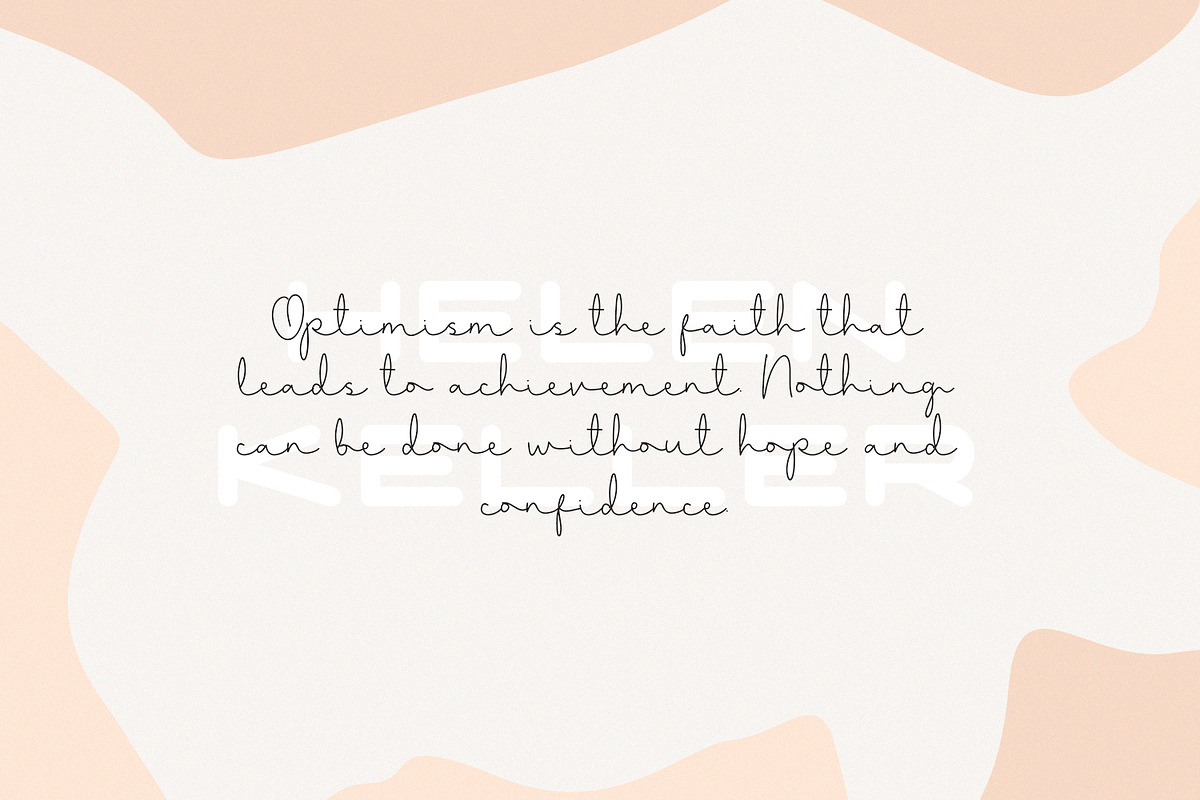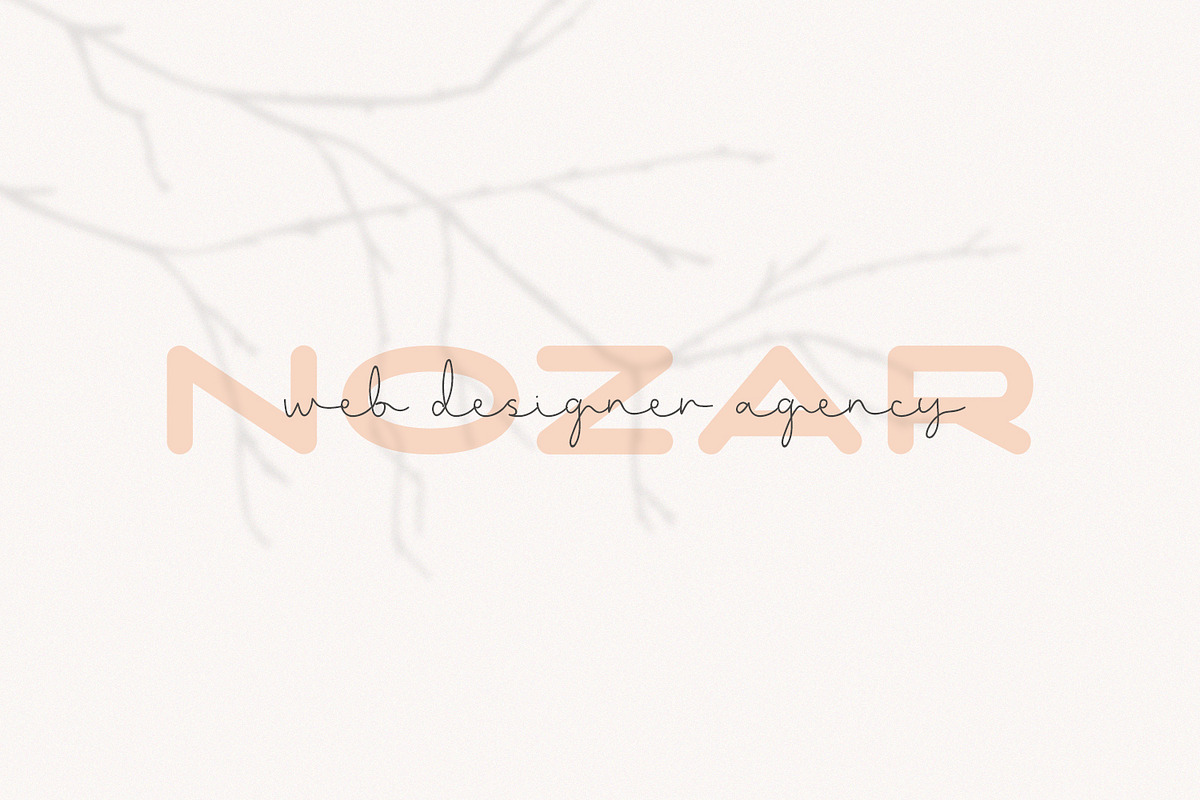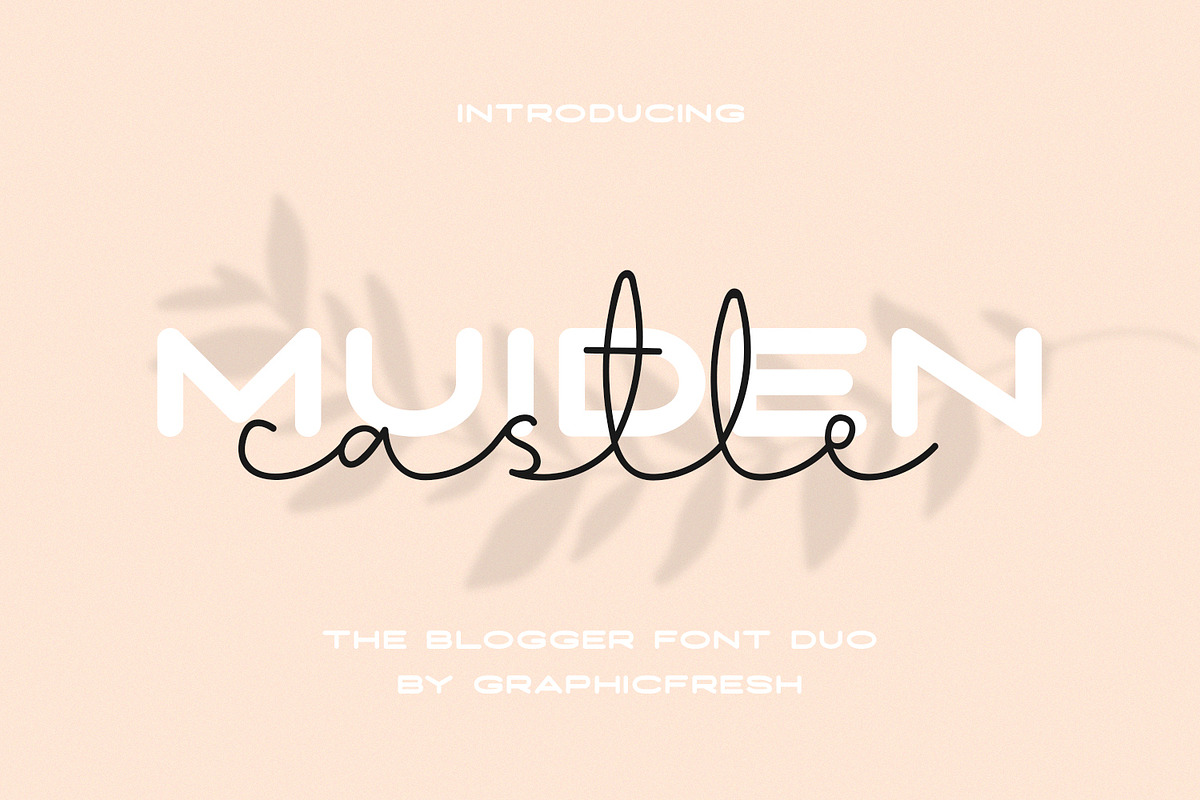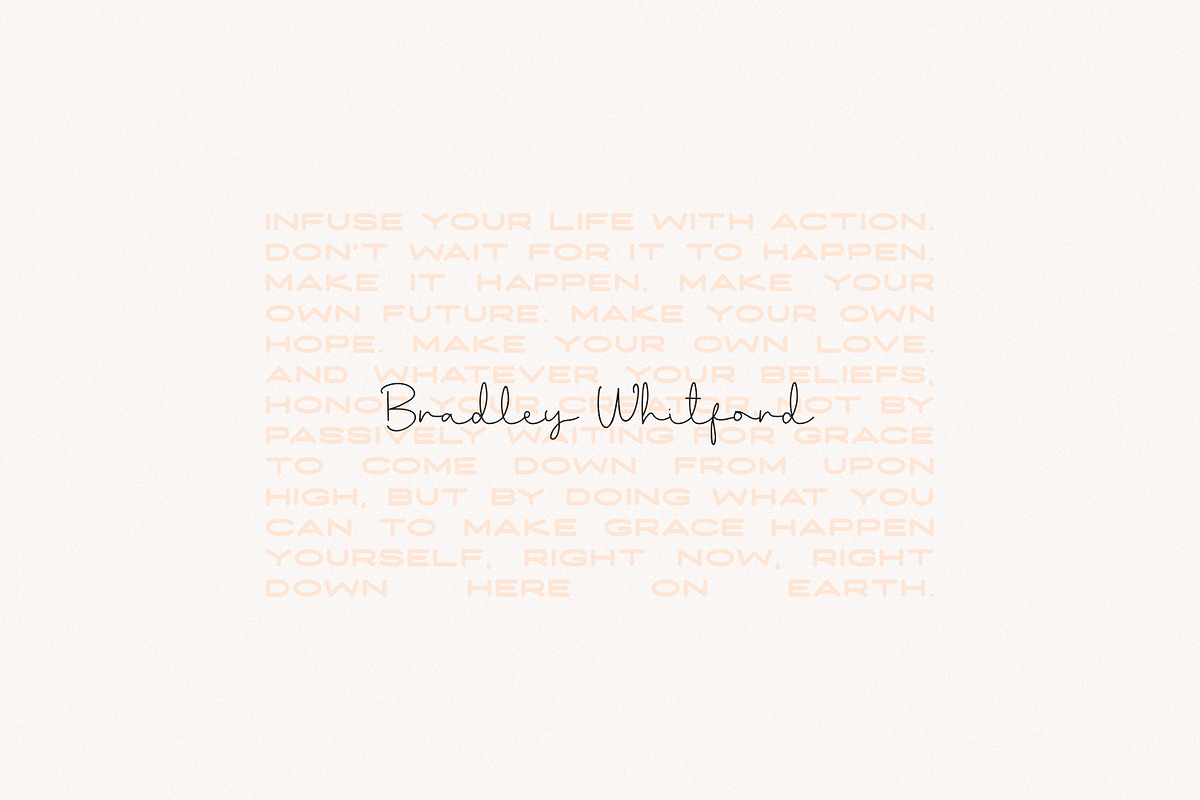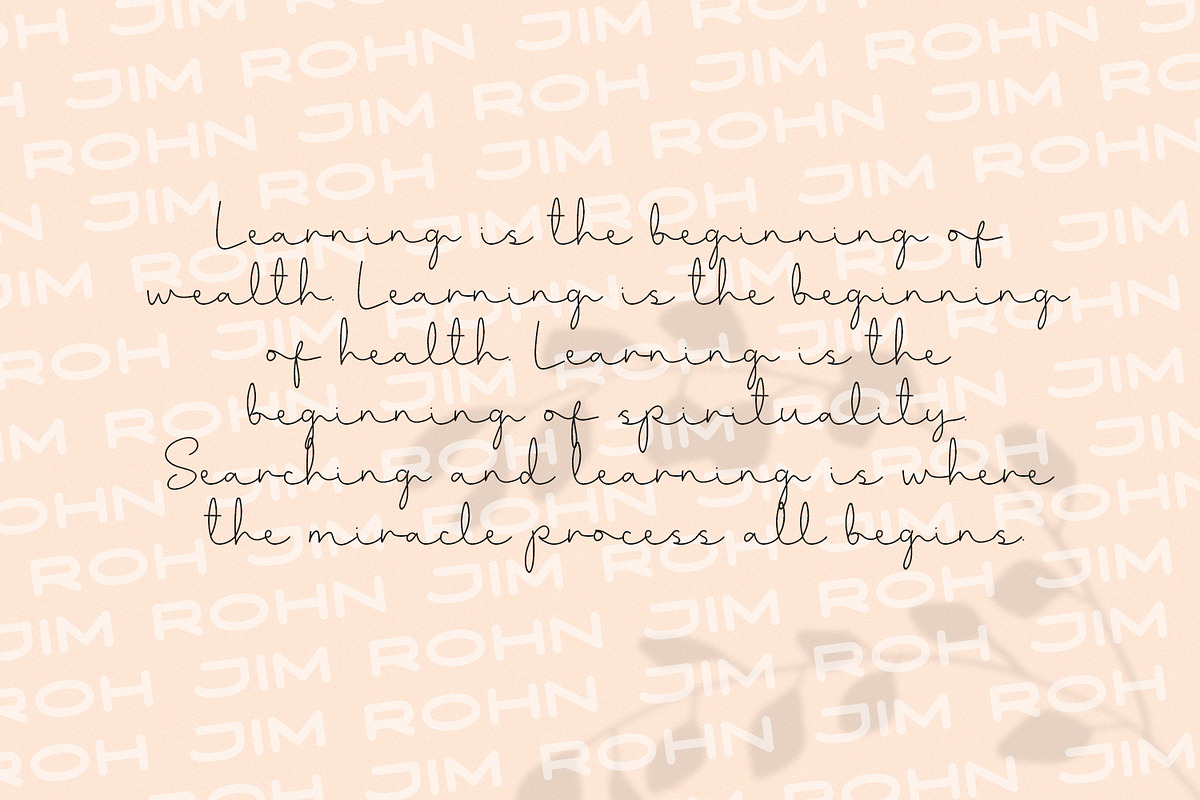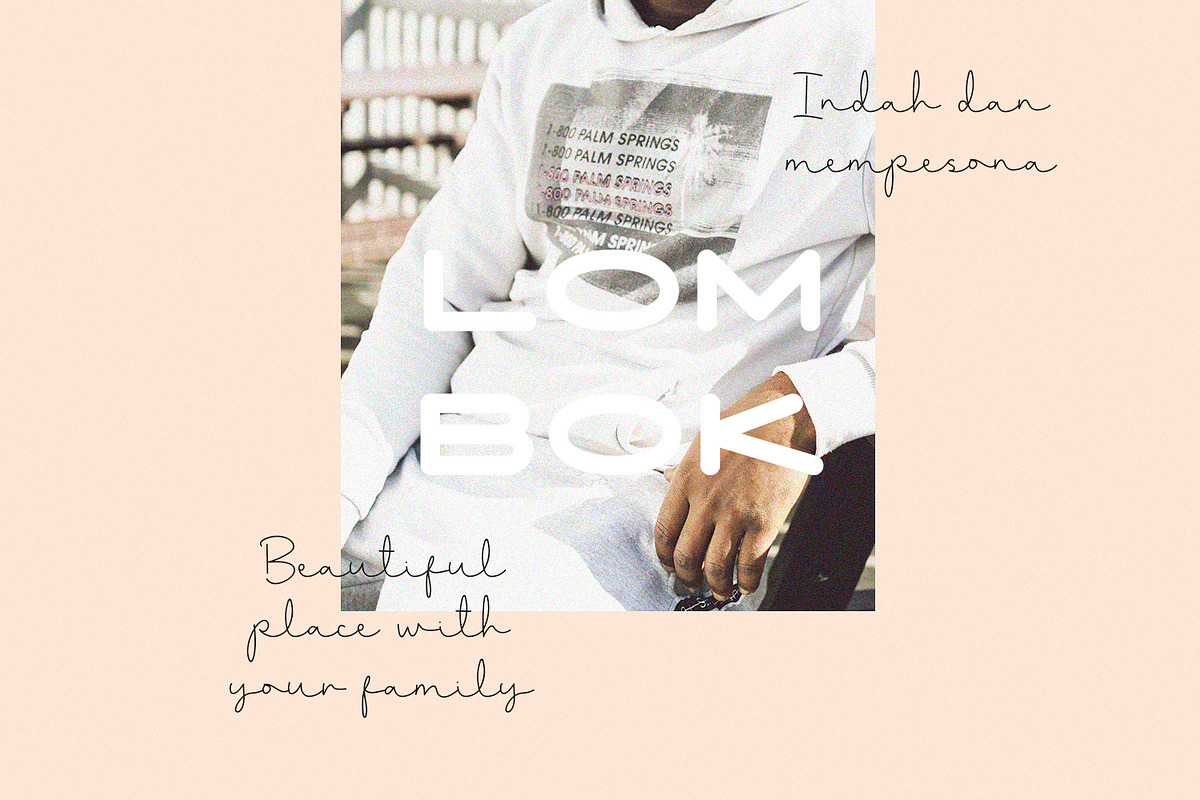
Muiden Castle - The Blogger Font Duo
Introducing Muiden Castle Font Duo!. It comes with an elegant and feminine style which is perfect to make any design stand out! This font is perfect for branding, wedding invites, magazines, mugs, business cards, quotes, posters, and more.
Suitable for Headlines, Logotypes, Signs, Posters, Letterhead, T-Shirt and many more.
- Muiden Castle Type Features:
- Suitable for Headlines, Logotypes, Signs, Posters, Letterhead, T-Shirt and many more.
Why Muiden Castle - The Blogger Font Duo is worth a look
Muiden Castle - The Blogger Font Duo by Graphicfresh fits naturally into Branding, posters, packaging, typography.